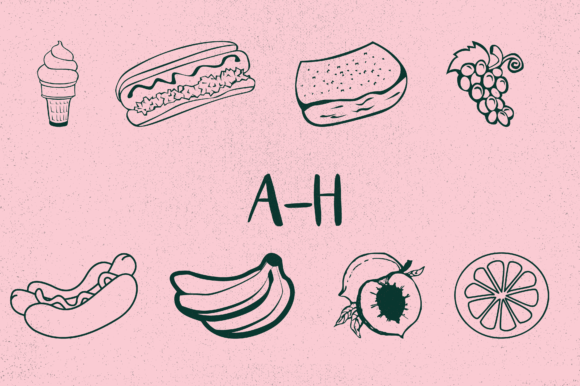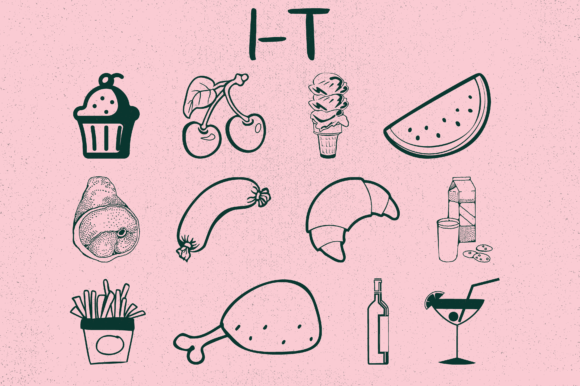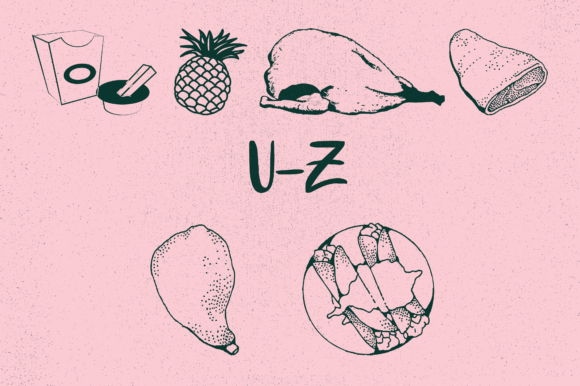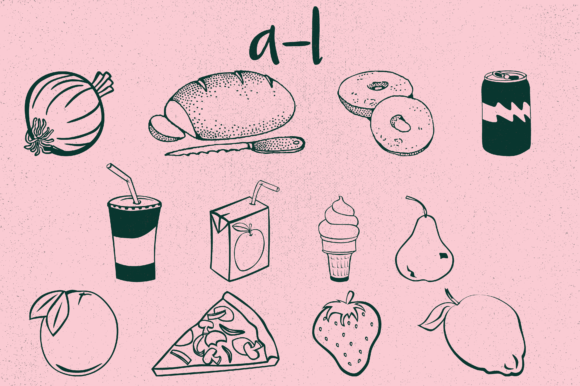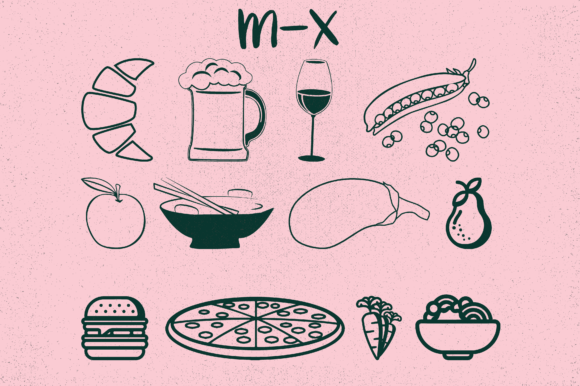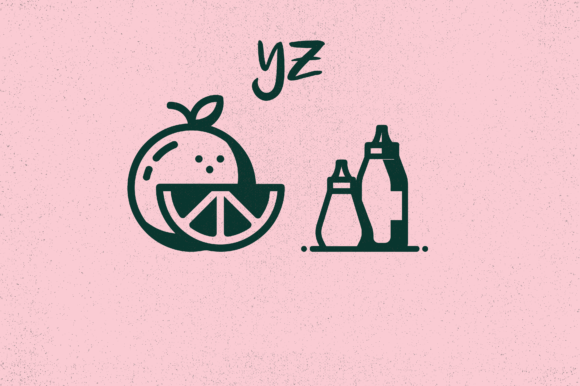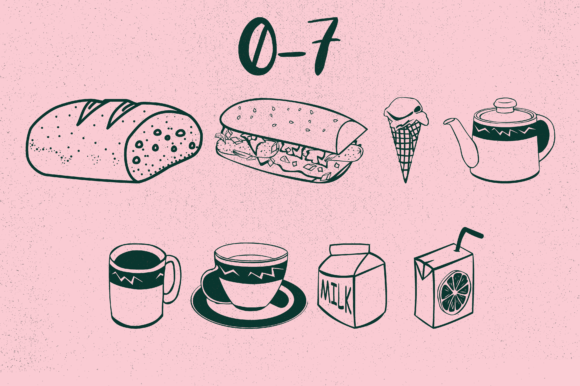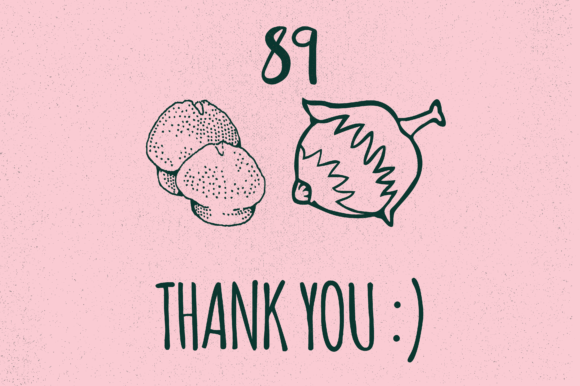
Foodiest Font
About Foodiest Font
Foodiest is a delightful and distinct dingbats font that is sure to add a touch of creativity and charm to your projects. As the name suggests, it is specifically designed to represent various food and culinary-related icons, making it perfect for anyone working on projects related to cooking, recipes, food blogs, menus, and more.
With Foodiest, you have a wide range of food-related glyphs at your disposal. From fruits and vegetables to utensils, desserts, and beverages, this font offers a diverse collection of food-themed icons that can be easily incorporated into your designs.
Whether you’re creating a food-themed logo, designing a menu for a restaurant, or adding decorative elements to a recipe card, Foodiest provides an abundance of options to choose from. You can mix and match different glyphs to create unique compositions, or use them individually as decorative accents.
The versatility of Foodiest allows you to explore endless possibilities in your designs. You can use it in both digital and print media, such as websites, social media posts, packaging, posters, and more. The whimsical and playful style of the font adds a touch of fun and excitement to your projects, making them visually appealing and engaging.
Using Foodiest is as simple as typing. Each character on your keyboard corresponds to a different food-themed glyph, allowing you to easily access and insert the desired icon into your design. The font provides a convenient way to add a visual representation of food items without the need for complex illustrations or graphics.
In summary, Foodiest is a cool and unique dingbats font that brings a delightful food-themed touch to your projects. With its diverse collection of food-related glyphs, you can easily incorporate culinary icons into your designs, adding visual interest and personality. Whether you’re working on food blogs, menus, or any other food-related projects, Foodiest offers a playful and versatile tool to enhance your creative endeavors. Let your imagination run wild and enjoy the delightful results!